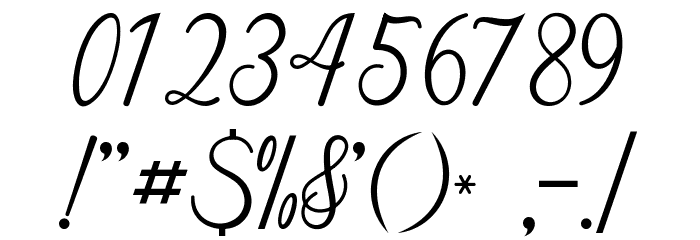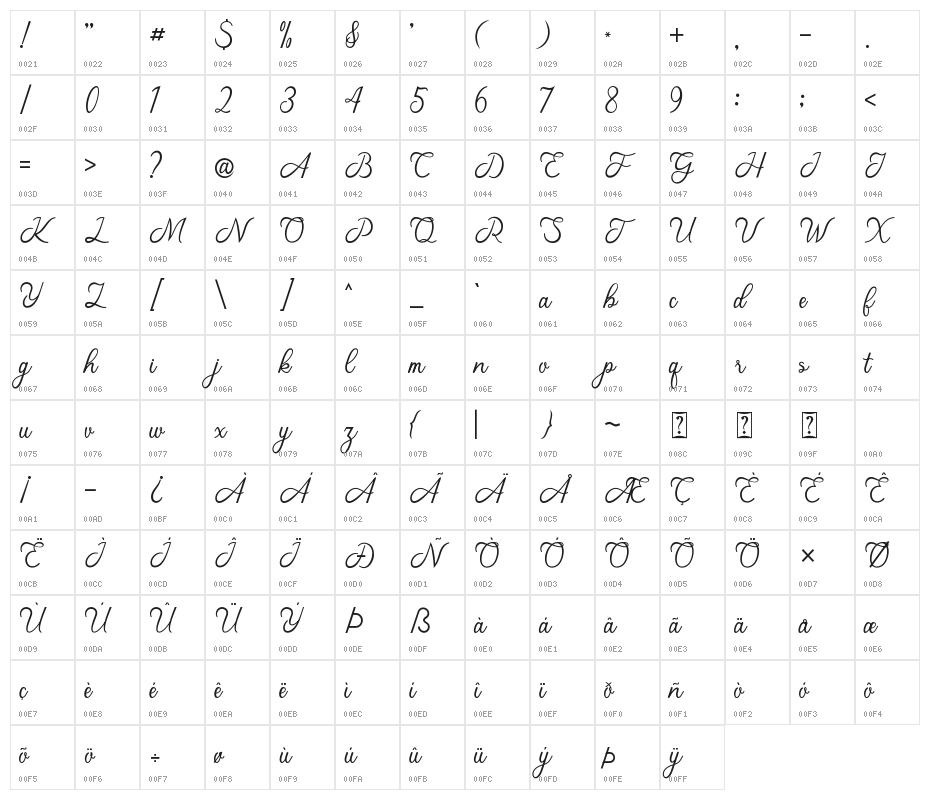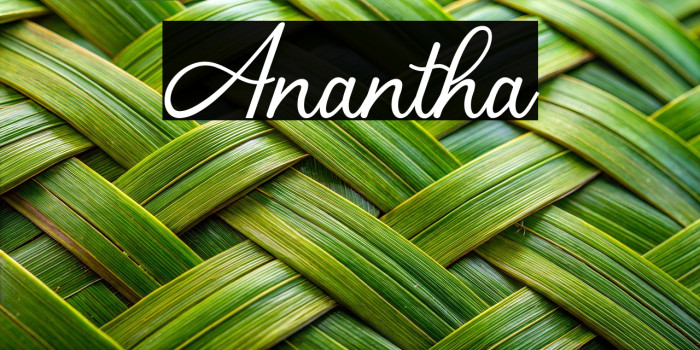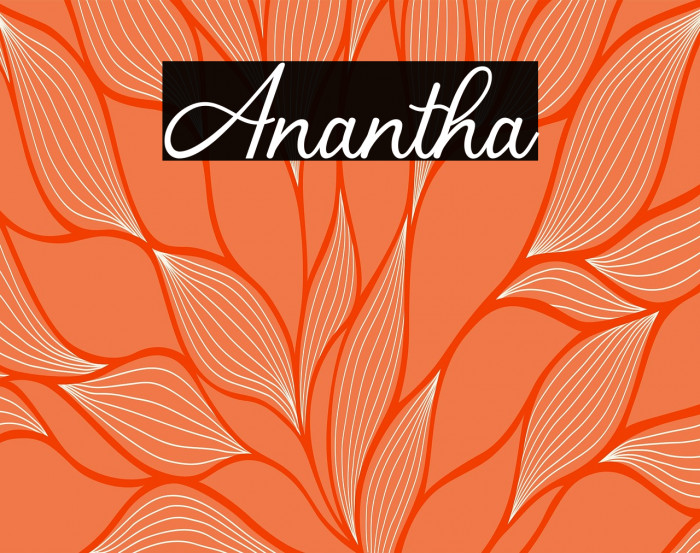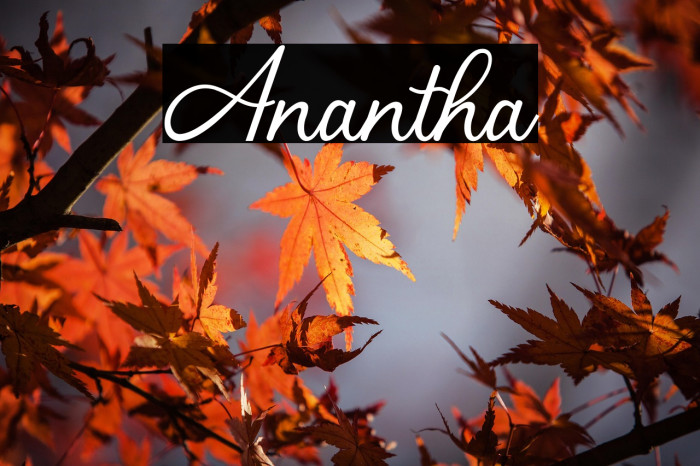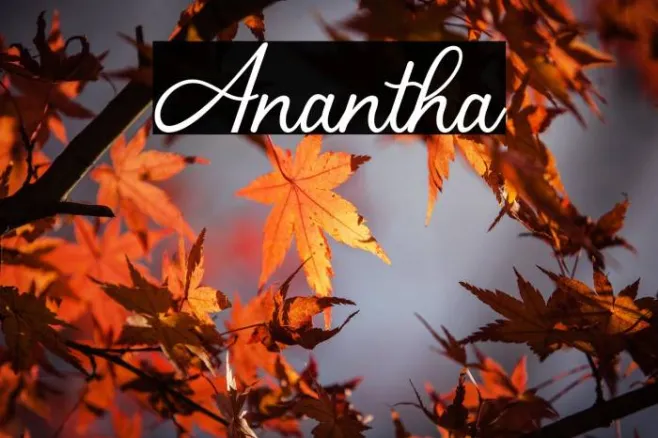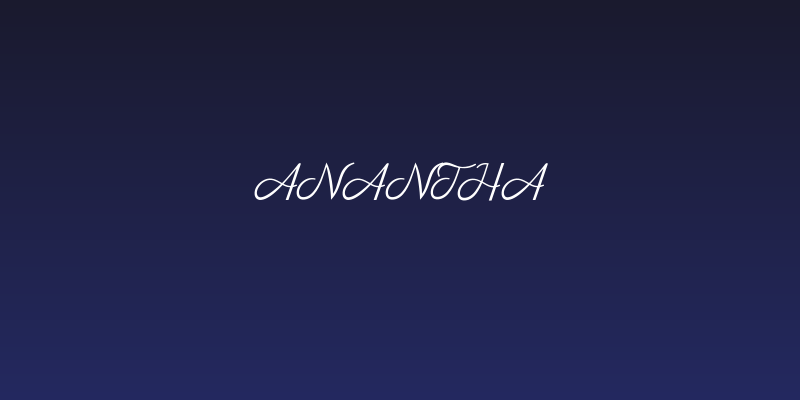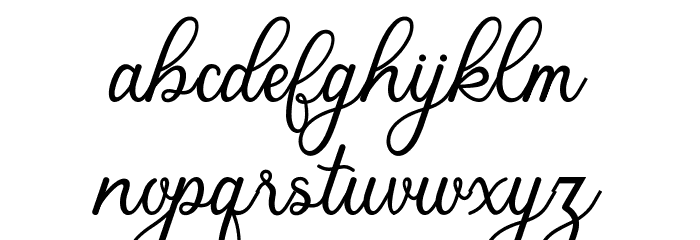
Anantha Font
Anantha Description
This elegant script font features fluid, cursive strokes that convey a sense of sophistication and grace. The uppercase letters are characterized by their sweeping curves and loops, creating a sense of movement and flow. The lowercase letters maintain a consistent style, with smooth connections between characters that enhance readability. The numerals are distinct yet harmonious with the overall design, featuring gentle curves and a slight slant. Special characters are thoughtfully designed to complement the script style, adding versatility for various uses. This font exudes a classic charm, making it suitable for formal invitations, branding, and decorative purposes.
| Proposed Projects | Ideal for wedding invitations, elegant branding, greeting cards, and decorative signage. |